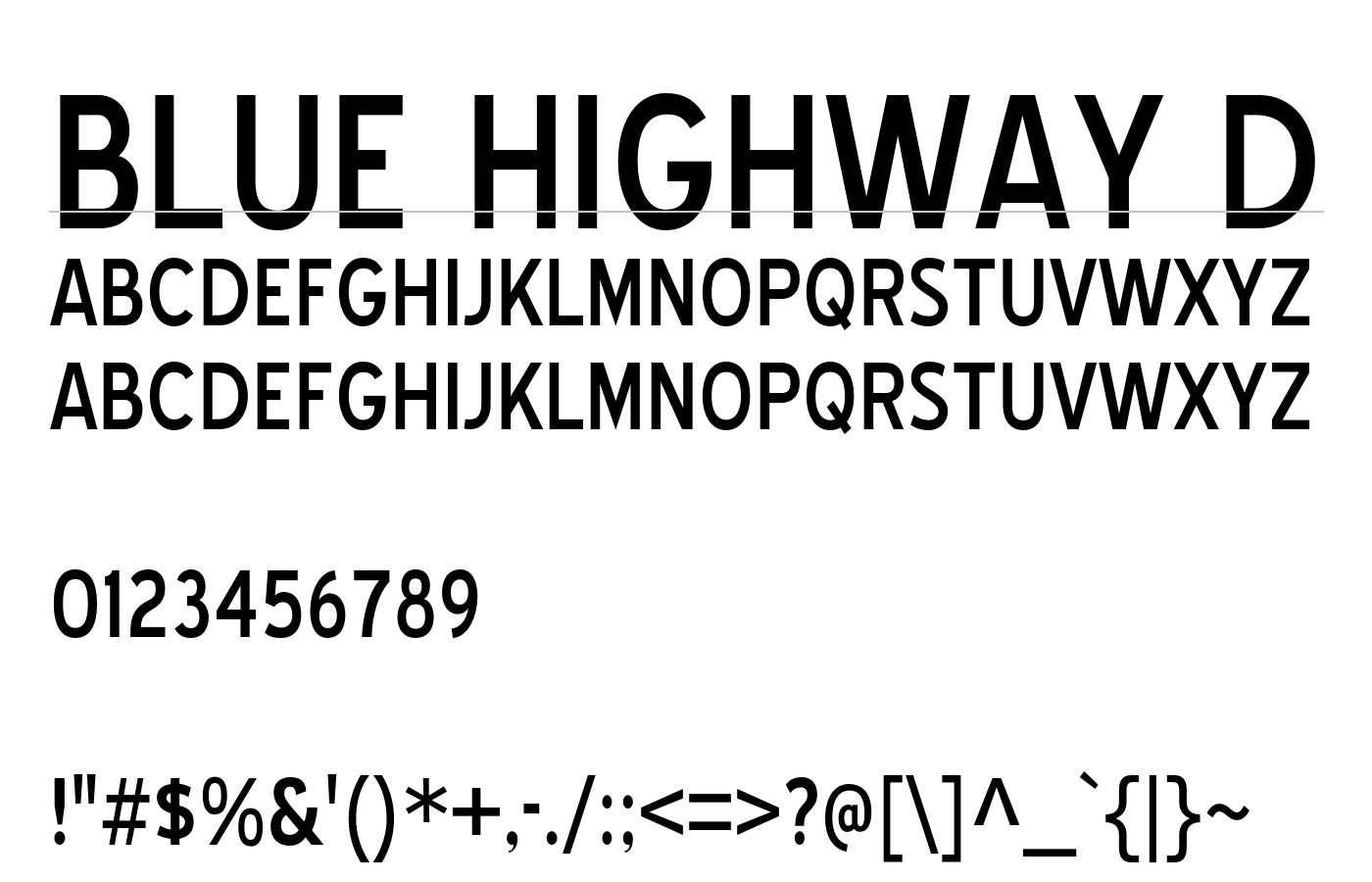
Blue Highway is a clean and narrow sans serif font with a modern, utilitarian feel. Its tall, condensed letterforms and consistent stroke weight give it a straightforward and highly legible appearance, making it ideal for signage, headlines, and branding that requires clarity and a contemporary edge. This font works well for projects that need a strong, no-nonsense style with a subtle touch of technical precision.
Blue Highway Font
About Blue Highway Font
| Font family | Blue Highway Font |
| Designer | Raymond Larabie |